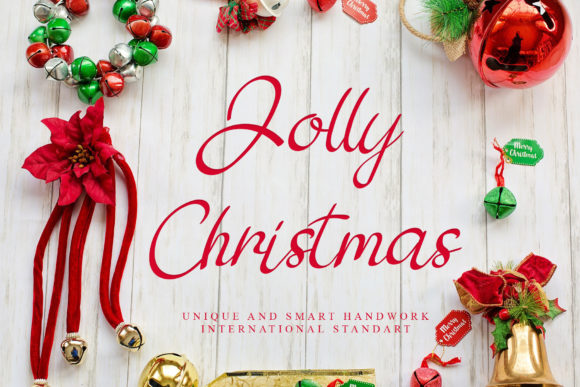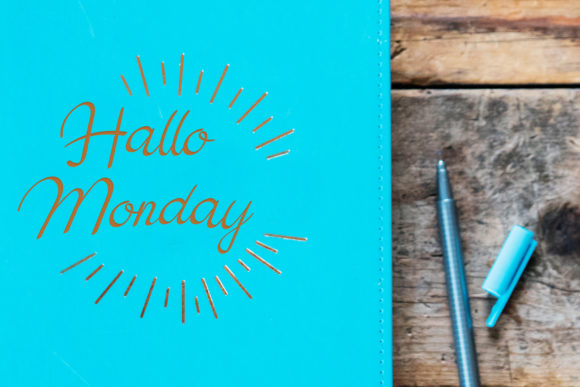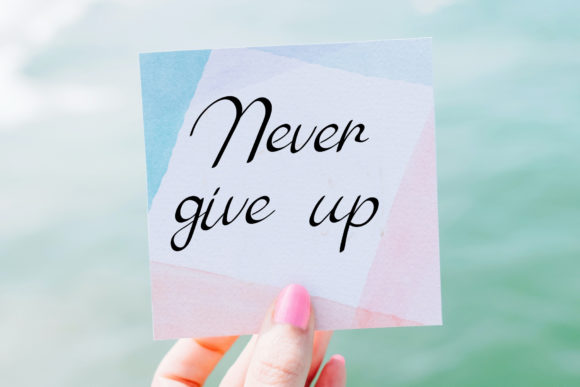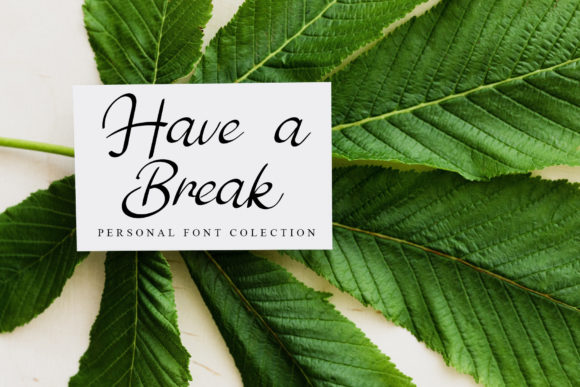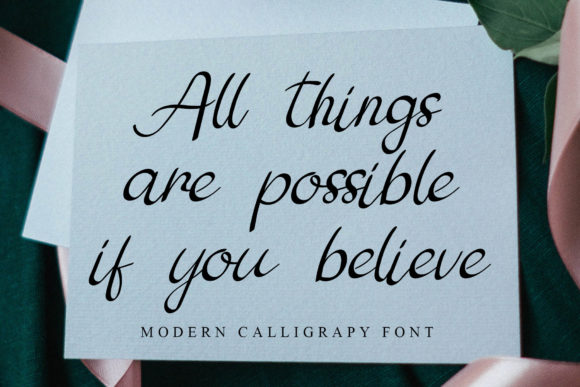
About Jolly Christmas Font
Jolly Christmas is a sweet and cursive handwritten font. This gentle font will look gorgeous on a variety of design ideas. It will add a joyful and romantic touch to each of your projects!